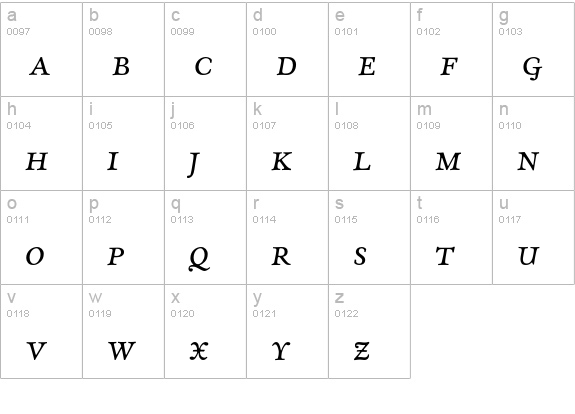
EldoradoText-ItalicSC font is a beautifully crafted typeface that exudes elegance and sophistication. Its slender and italicized design adds a touch of flair to any design project, making it perfect for use in editorial layouts, branding materials, and more. The delicate curves and unique styling of EldoradoText-ItalicSC font make it a versatile choice for both digital and print applications. And the best part? EldoradoText-ItalicSC font is completely free to download at FontsMarket.com. Whether you're a professional designer looking to add a new font to your collection or a hobbyist in need of a stylish typeface for a personal project, EldoradoText-ItalicSC font is the perfect choice. Don't miss out on this fantastic opportunity to enhance your designs with this exceptional font. Download EldoradoText-ItalicSC font today and take your creations to the next level!